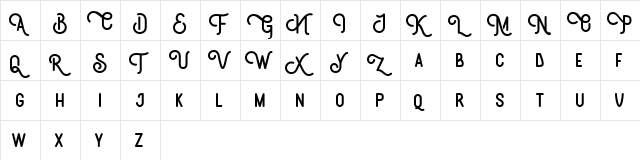
Brotherhood Regular
| Foundry | Jamaludin |
| Designer | dharmas |
Design Context for Brotherhood Typeface
Brotherhood takes a measured approach to typography — its balanced proportions and neutral character make it a reliable workhorse for both digital and print work.